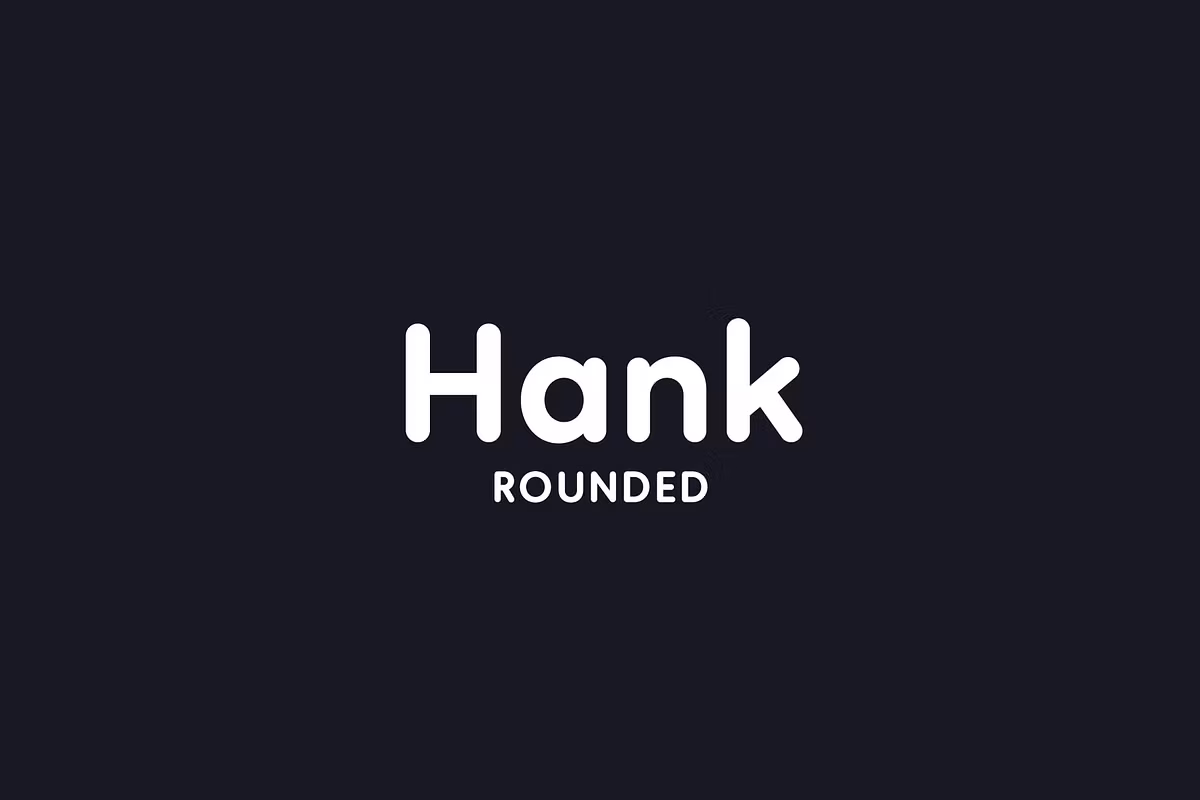
Hank Rounded is a semi-condensed sans-serif font designed by Reghardt, characterized by its geometric shapes and rounded edges. It's available in four weights: Regular, Light, Bold, and Black, providing versatility for various design applications.
Design: Constructed with geometric shapes, Hank Rounded offers a clean and modern aesthetic suitable for both digital and print media.
Weights: The font family includes Regular, Light, Bold, and Black weights, allowing for diverse typographic expressions.
Usage: Ideal for branding, headlines, logos, and user interfaces, Hank Rounded ensures readability and a contemporary look across various platforms.